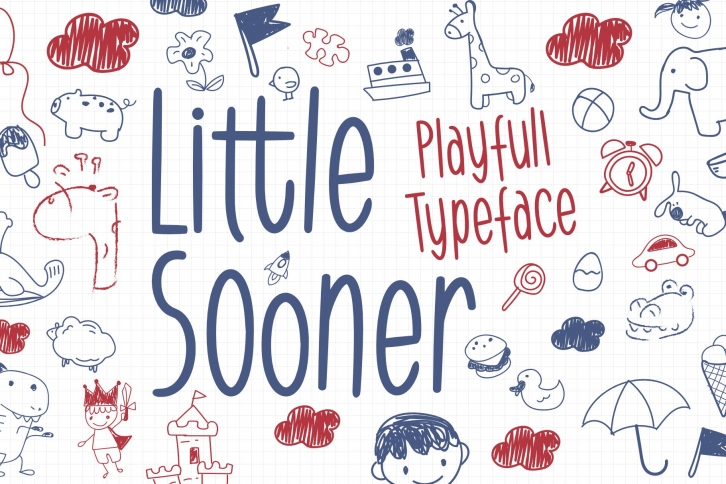
Little Sooner is a gorgeous font that was realeased on January 6, 2021. The font can be used in many style contexts and design environments. Perfect for invitations, magazines, websites, logos, and more! It was designed by Dumadistyle and the file size is 21.55 MB. Thanks for checking out this font!